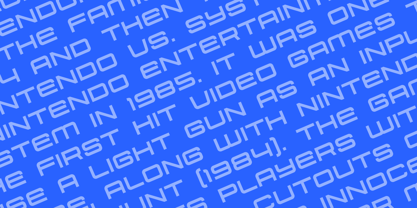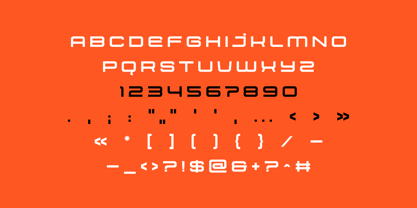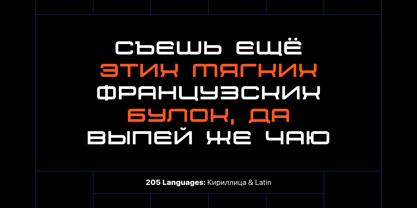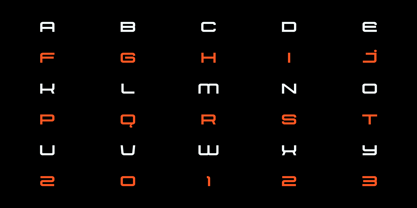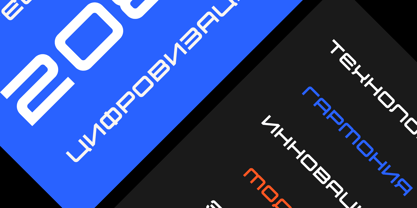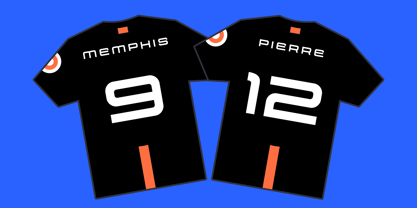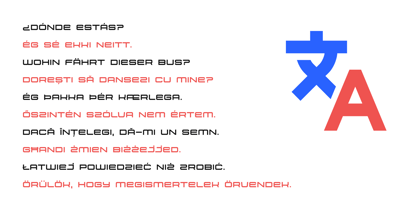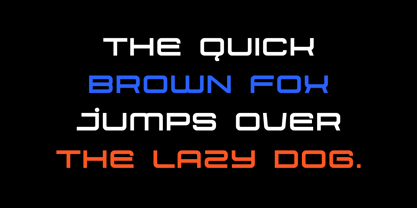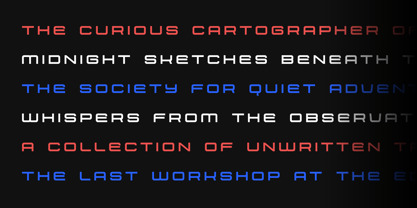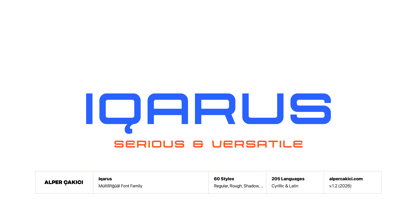
Iqarus
The Iqarus Font Family was designed by Alper Çakıcı and published by AlperCakici. Iqarus contains 1 styles. More about this family
Iqarus - A Modern Display Font
- Iqarus is a carefully crafted font.
- Multilingual: It has Extended Latin and Extended Cyrillic letters.
Iqarus created for games, web design, branding and social media works.